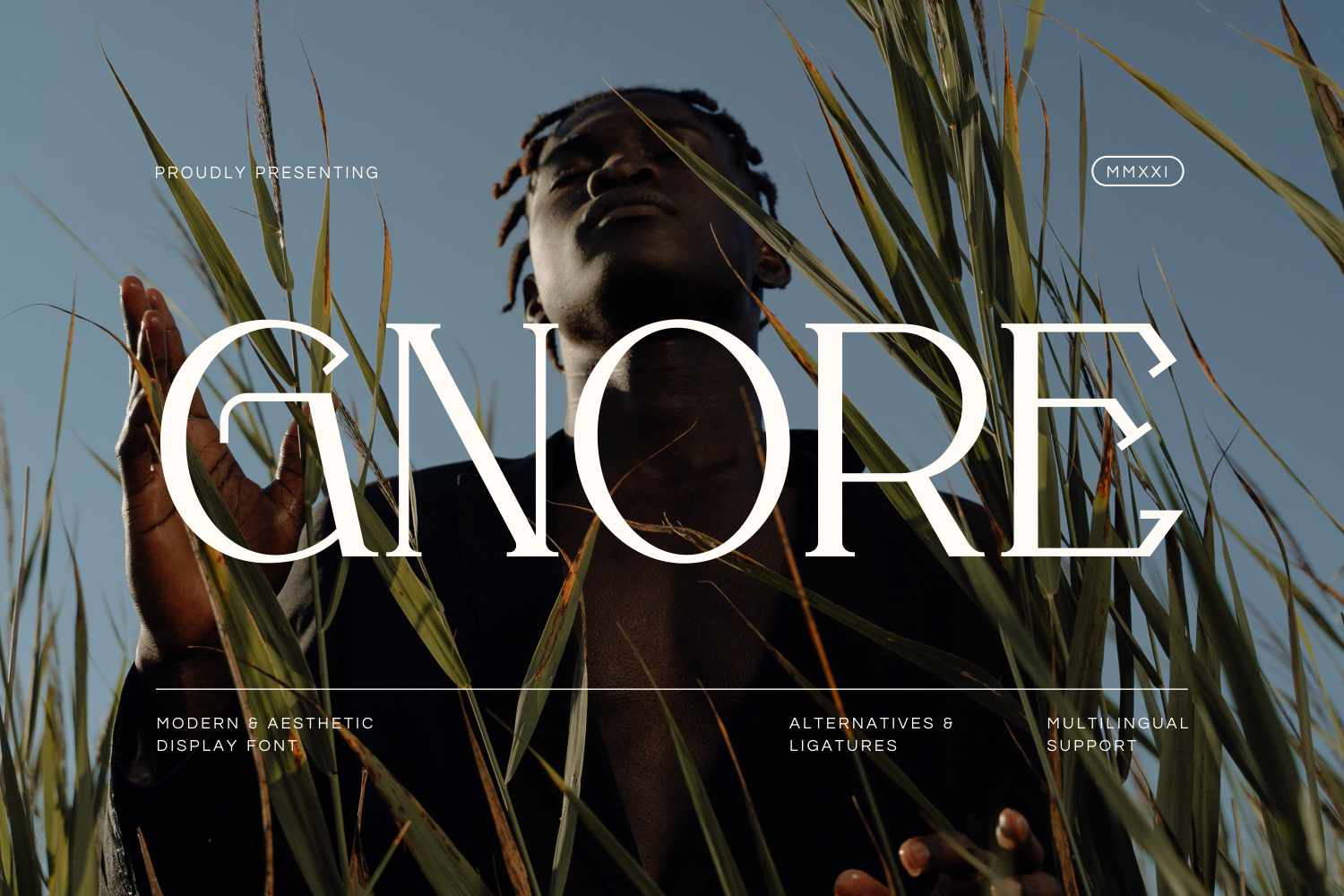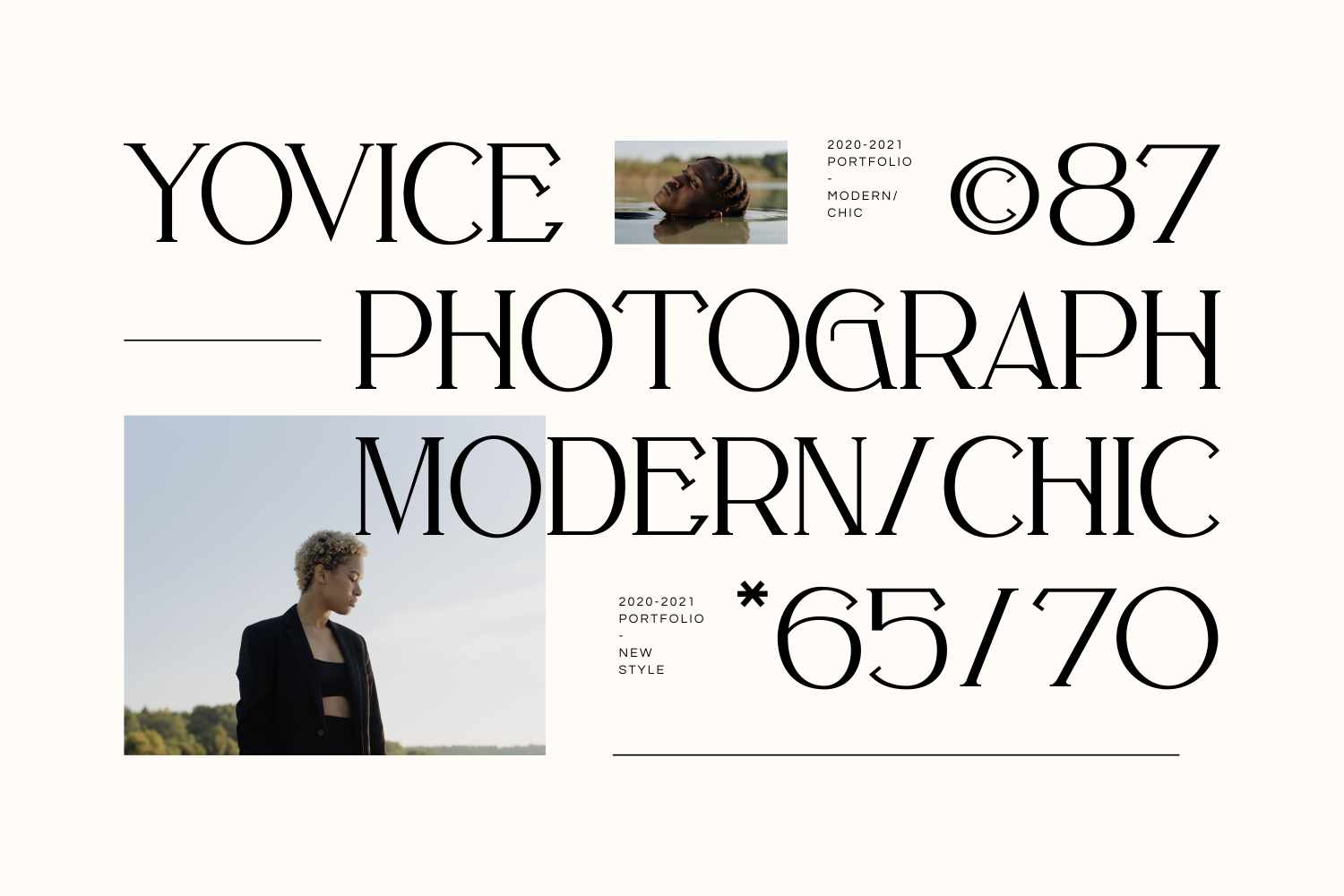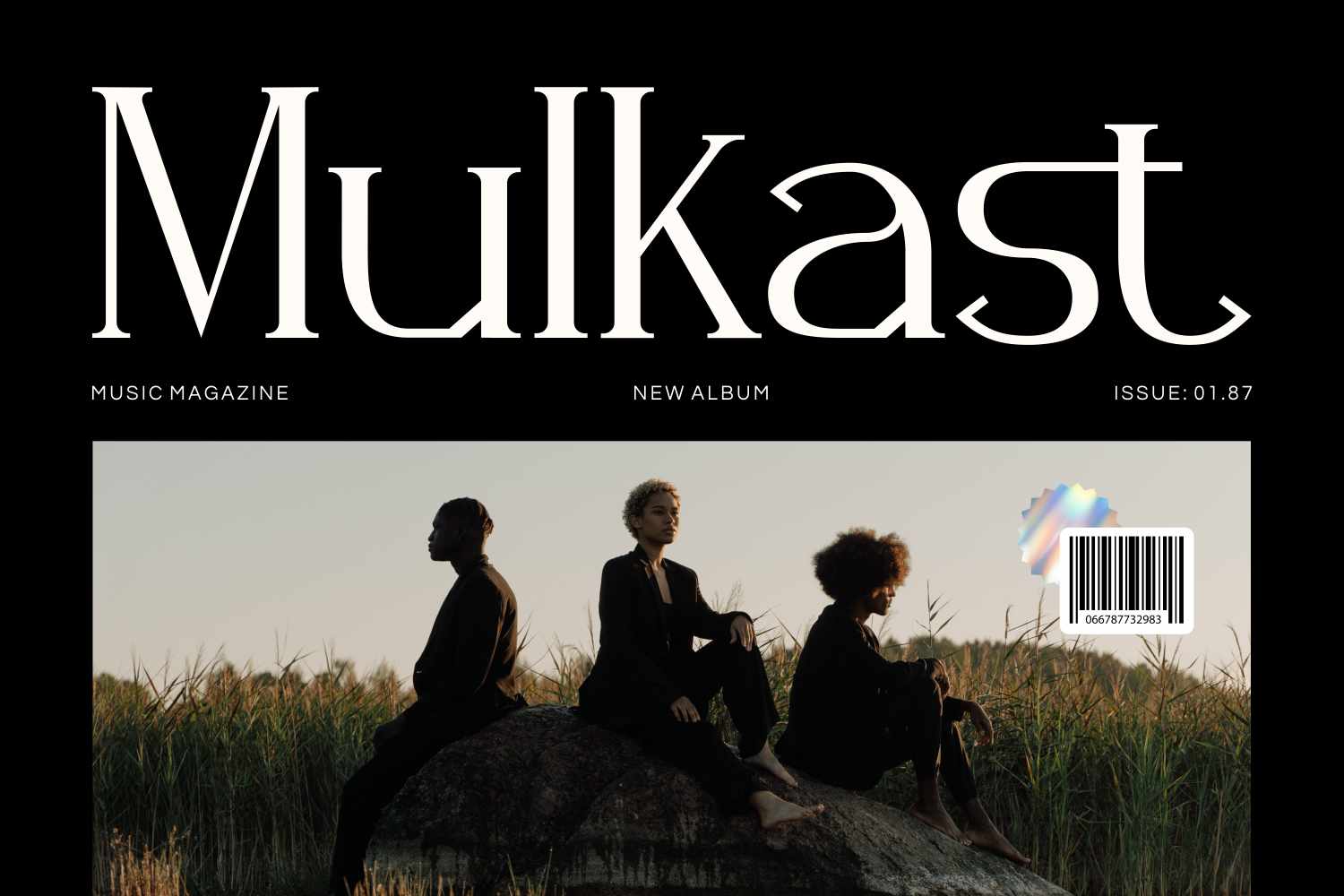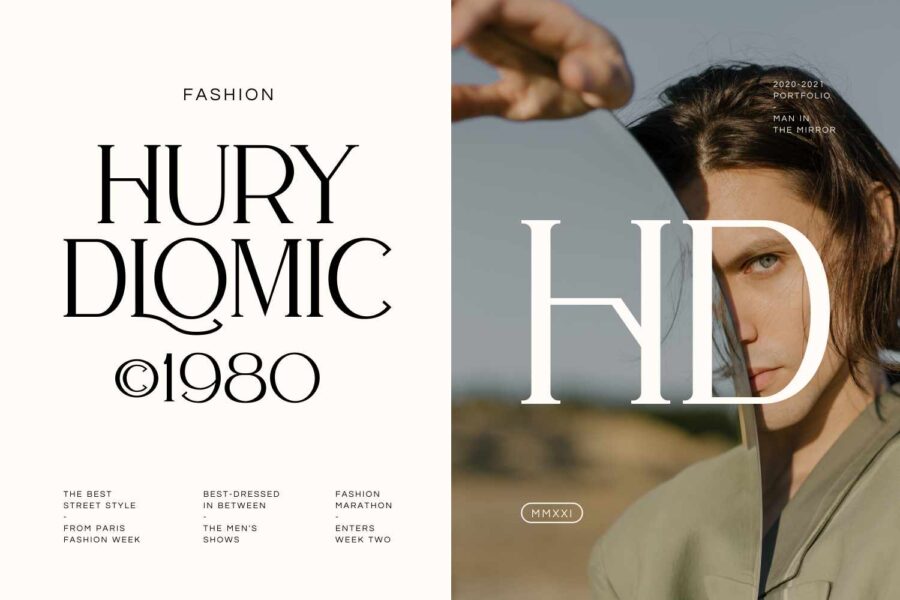
Gnore is a sophisticated modern serif display font designed with clean lines and distinctive geometric elegance. It combines high contrast strokes with unique alternate characters and sharp, angular terminals that give it a strong editorial presence. Perfectly crafted for fashion, photography, or lifestyle branding, Gnore delivers a sleek and contemporary personality that stands out in both minimalist and expressive layouts.
With a blend of classic serif heritage and futuristic stylistic alternatives, Gnore is ideal for magazine titles, portfolios, posters, and luxury branding. It supports multilingual characters, custom ligatures, and alternate glyphs making it versatile for diverse creative applications. Whether used in headlines or artistic compositions, Gnore adds a refined statement to your design work.
Gnore